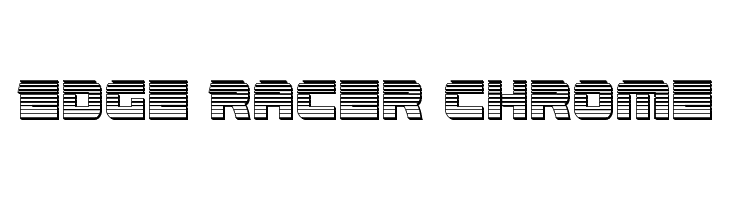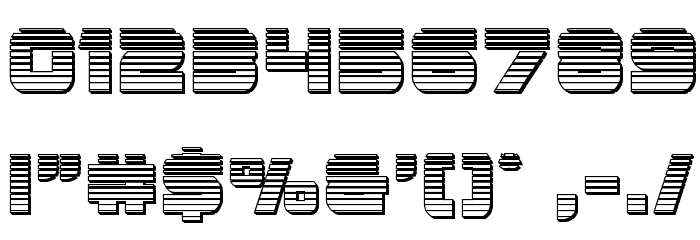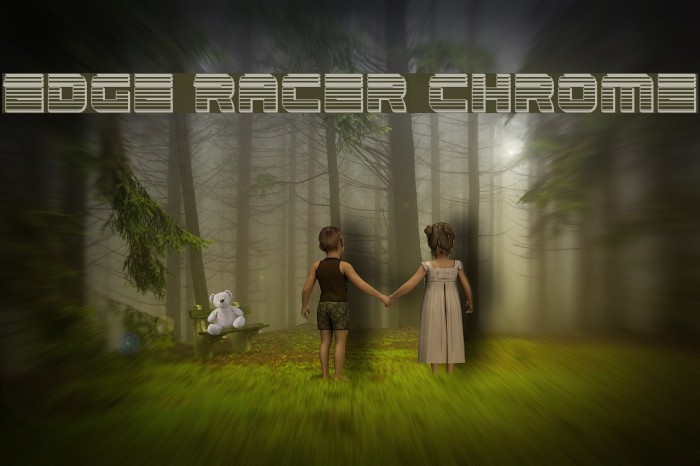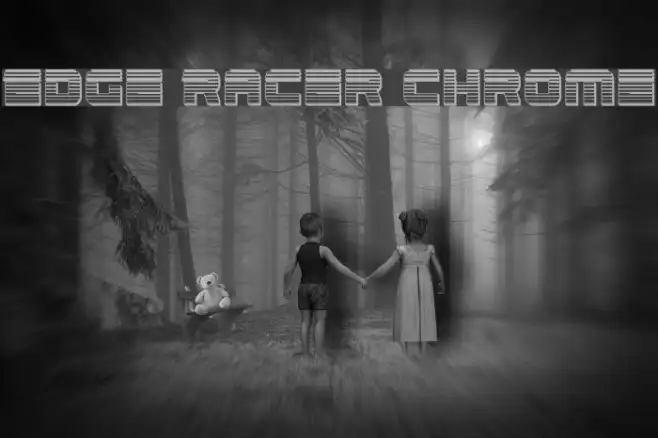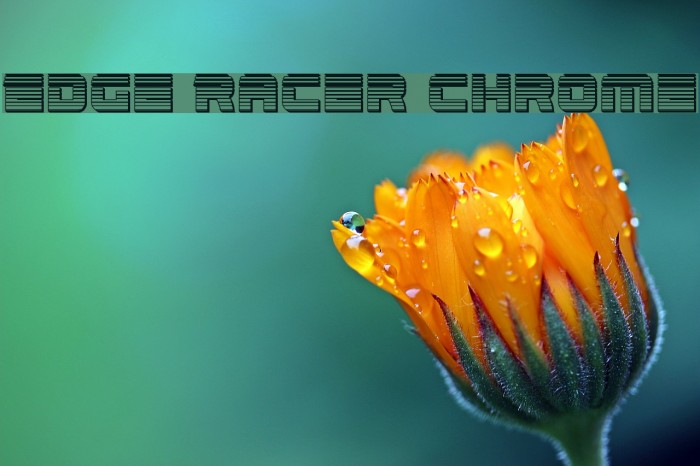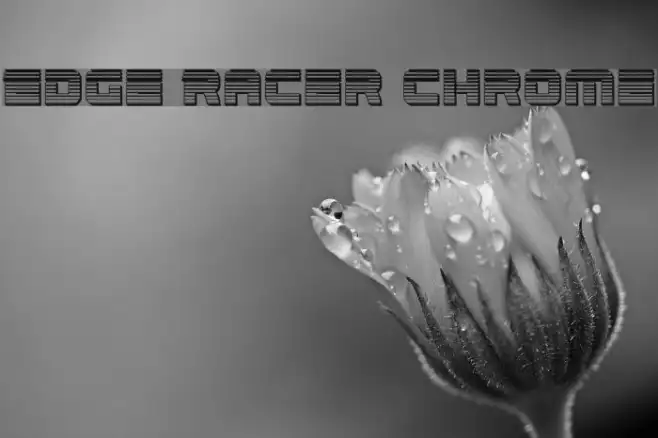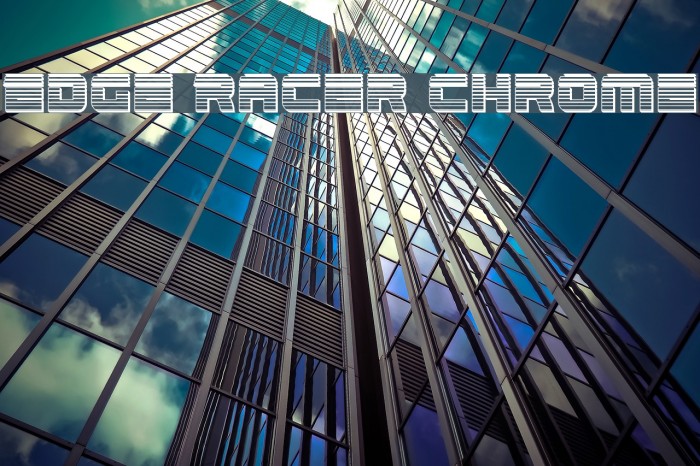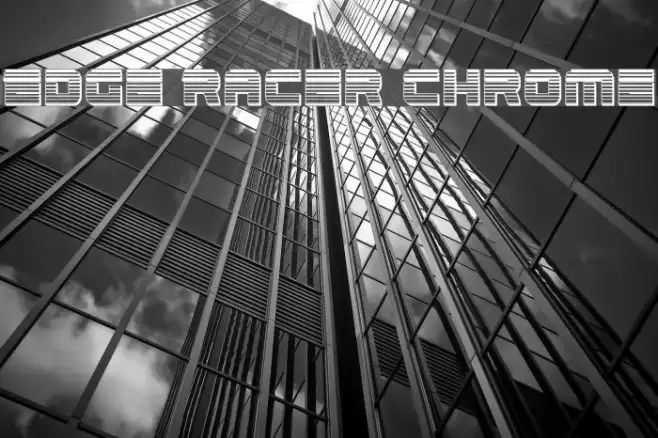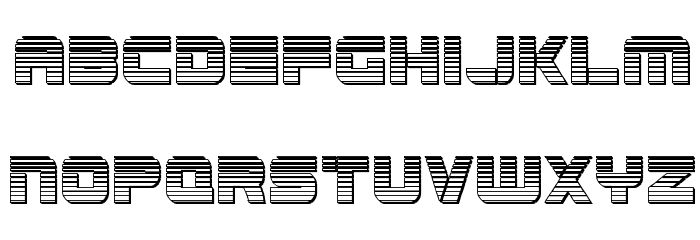
Edge Racer Chrome Font
This font features a bold, futuristic design with a distinct three-dimensional effect created by parallel lines running through each character. The geometric structure and sharp angles give it a dynamic and modern appearance, reminiscent of speed and technology. The uppercase and lowercase letters maintain a consistent style, while the numerals and special characters integrate seamlessly into the overall design. The font's unique aesthetic makes it stand out, ideal for projects that require a strong visual impact.
A bold, futuristic font with a three-dimensional effect and geometric design.